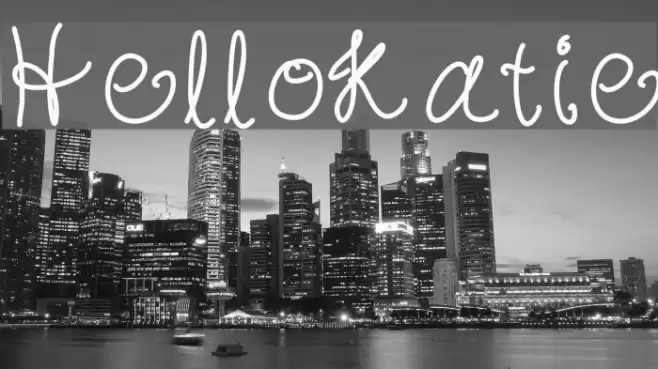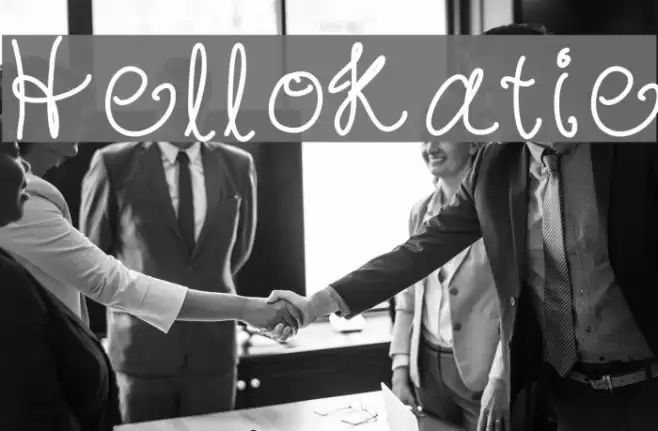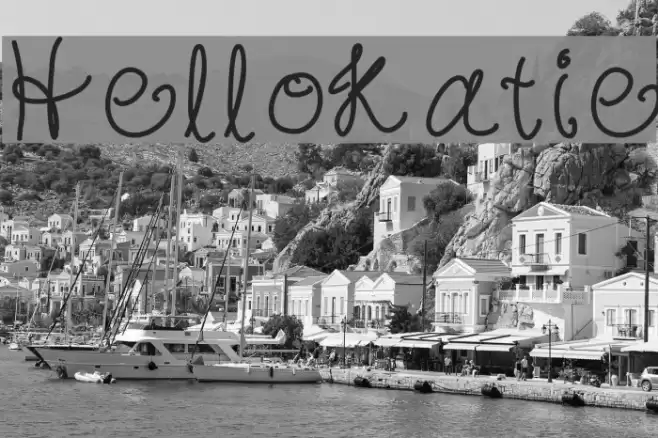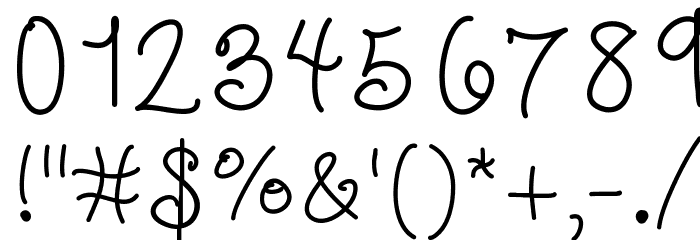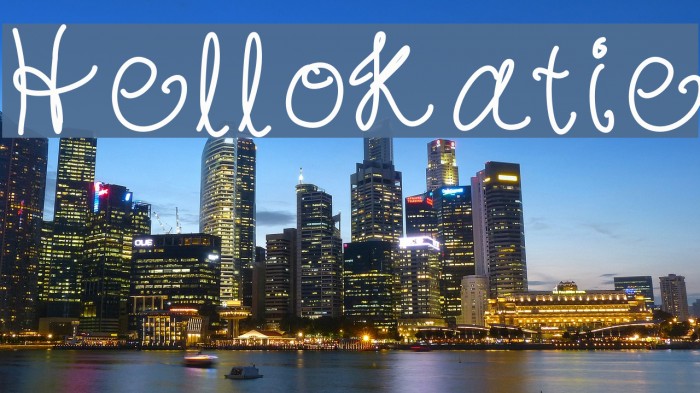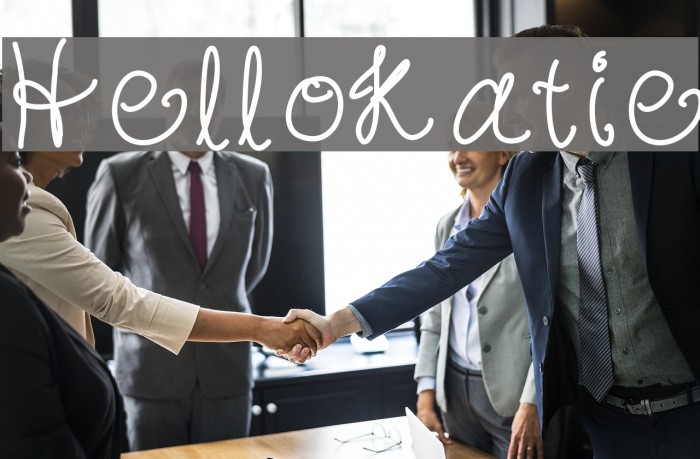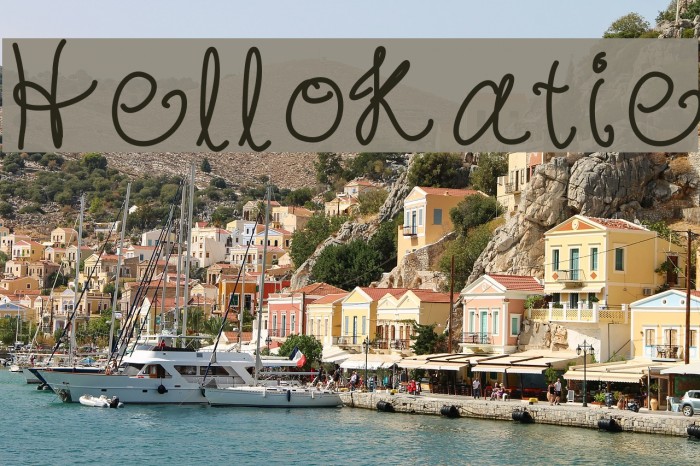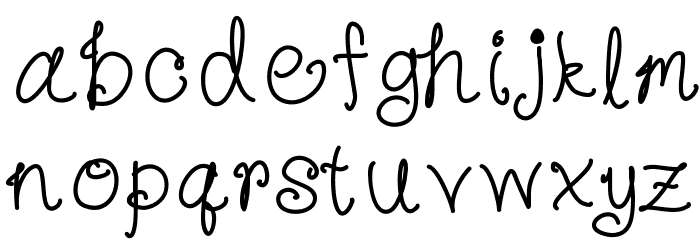
HelloKatie Font
HelloKatie Description
This font features a playful and whimsical handwritten style, characterized by its flowing, cursive-like letters that maintain a consistent rhythm throughout. The uppercase letters exhibit a charming looped design, while the lowercase letters are more rounded and approachable. Numbers and special characters follow the same playful aesthetic, making them stand out with their unique curves and loops. The overall appearance is casual yet artistic, suitable for projects that require a personal touch.
A playful, whimsical handwritten font with flowing, cursive-like letters from Uncategorized fonts.
- Proposed Projects: Ideal for greeting cards, invitations, children's books, and creative branding projects.
- Use Case: Headlines, Logos, Invitations